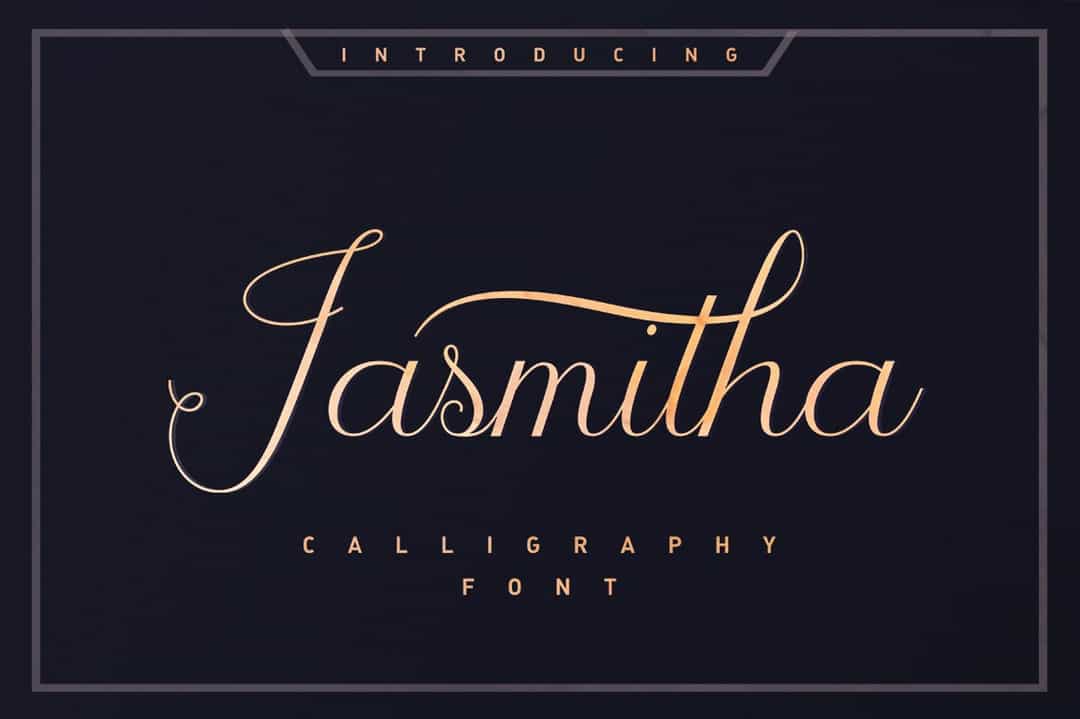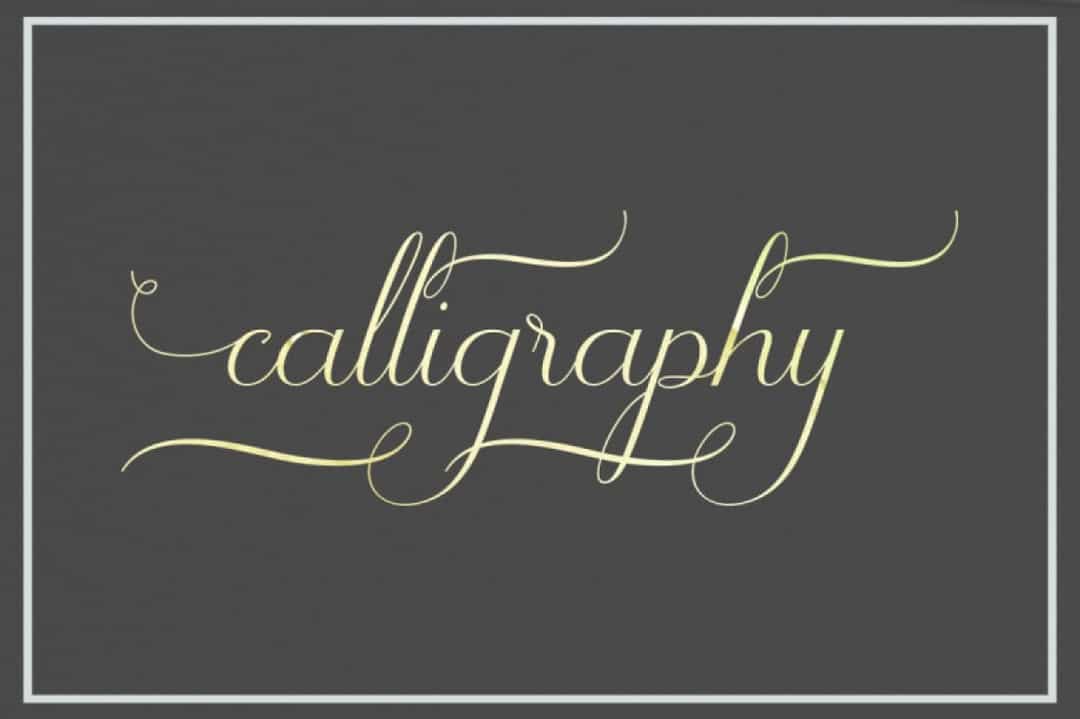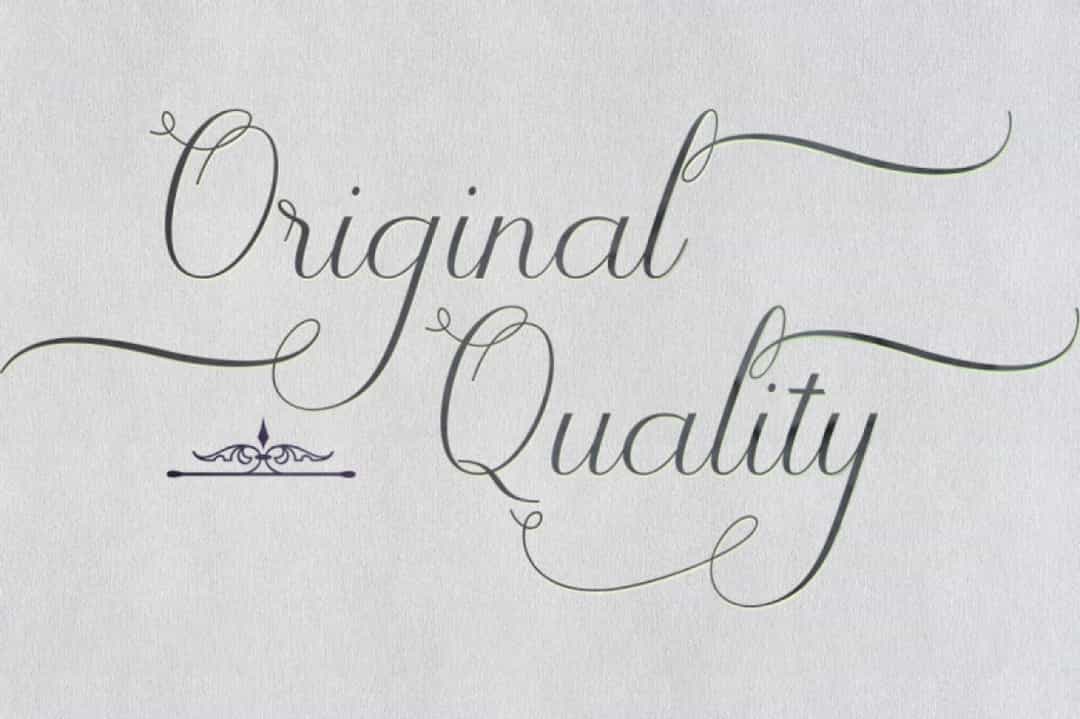
Discover Jasmitha Script Font, part of the Calligraphy collection—a versatile and unique font perfect for adding a personal touch to your projects. Download it for free and enjoy crafting designs with style, from invitations to social media posts. This font is available exclusively for personal use, giving you the freedom to create without limits. Unlock your creativity with Jasmitha Script Font today!
Jasmitha Script Font features the latest hand scratching designs. I hope that you are inspired by this font should you decide to utilize it for your own work, it provides many features including lowercase letters as well as various punctuation marks numbers multilingual support ligature styles & alternate styles that should keep you interested.